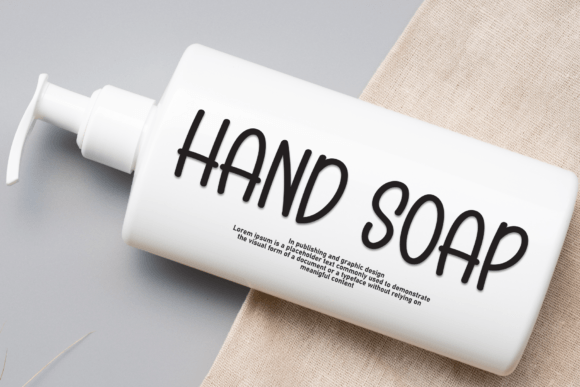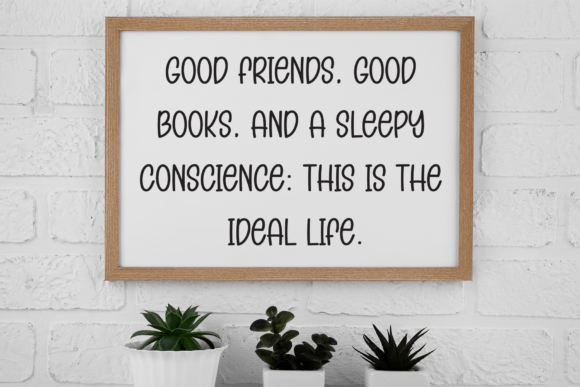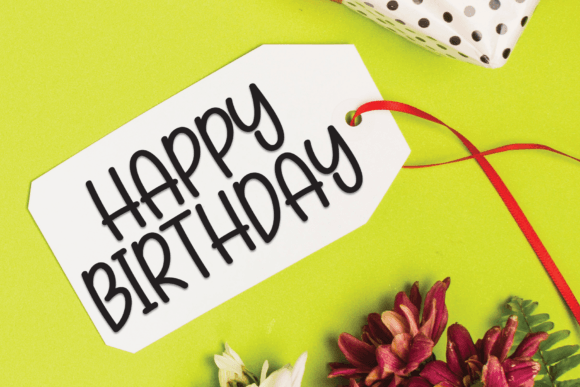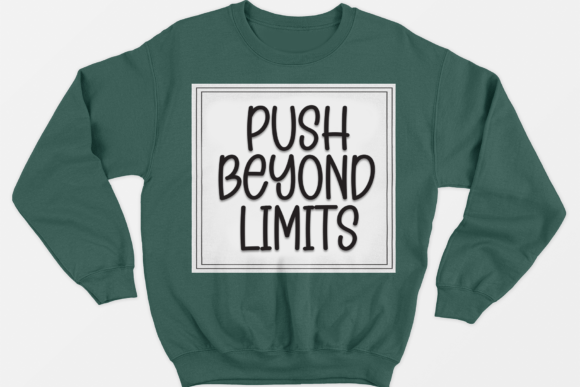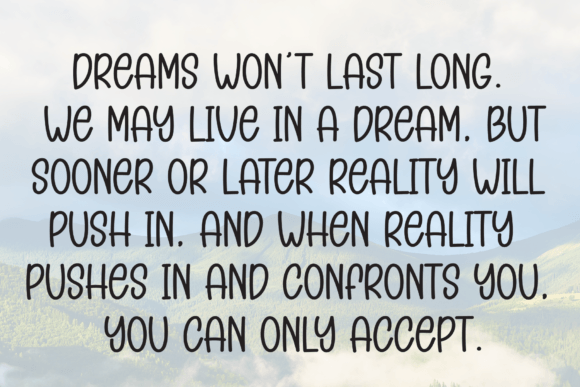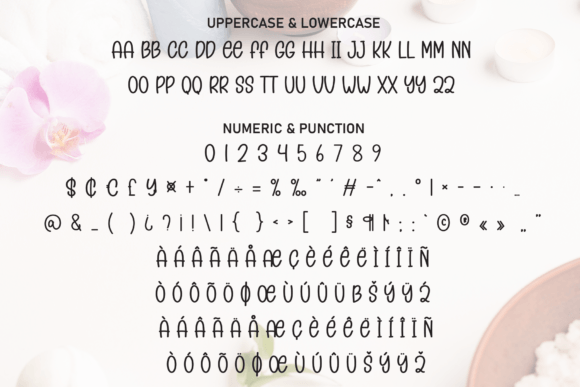
Introduction to Simple Aromatic Font
Do you remember that moment when you finally nailed the perfect design for your client’s project? The one where the colors, typography, and layout all came together to create a visually stunning piece that exceeded their expectations? For designers, moments like these are what make all the hard work worth it. And, for many of us, the right font can make all the difference. That’s where the Simple Aromatic Font comes in – a casual sans-serif font that brings a relaxed and playful vibe to any project.
This free download has become a go-to design resource for many creatives, thanks to its high-quality letterforms and effortless style. Whether you’re working on a poster, branding, or any other creative project, the Simple Aromatic Font is sure to add a touch of fun and spontaneity. With its transparent background and approachable design, it’s no wonder why this font has become a favorite among designers.
Key Features of Simple Aromatic Font
- Unique Aromatic Design: This font features an elegant and modern design with an aromatic twist, making it perfect for creative projects that require a touch of sophistication.
- Transparent Background: The transparent background of this font allows for easy layering and customization, giving you the flexibility to create visually appealing designs.
- Perfect for Creative Projects: This font is ideal for use in creative projects, such as branding, marketing materials, and digital art, where a unique and elegant design is required.
Honest Review: Simple Aromatic Font
As a designer, I’m always on the lookout for high-quality design resources that can elevate my creative projects. I recently stumbled upon the Simple Aromatic Font, and I’m excited to share my honest review with you.
What works well: ✨ The font is incredibly easy to use, with a transparent background that makes it perfect for overlaying on images. The style is modern and sophisticated, making it ideal for a wide range of creative projects. Plus, it’s a free download, which is a major bonus.
- High-quality design that’s perfect for modern creative projects
- Transparent background for easy overlaying on images
Limitations: ⚠️ While the font is generally well-designed, I did find that it lacks some character variations, which can make it feel a bit one-dimensional at times.
Overall, I’m impressed with the Simple Aromatic Font. It’s a solid addition to any designer’s toolkit, and its high-quality design and transparent background make it a great choice for a wide range of creative projects. While it may not be perfect, it’s a free download that’s definitely worth checking out.
To achieve the best results with the Simple Aromatic Font, use it on a high-quality background image or a transparent background. This will allow the font to stand out and give your design a professional look. Additionally, experiment with different font sizes and styles to create visual interest.
The Simple Aromatic Font is ideal for creative projects such as branding, advertising, and editorial design. Its elegant and sophisticated design makes it perfect for use in logos, brochures, and business cards. You can also use it to create eye-catching headlines and titles for your website or social media posts.